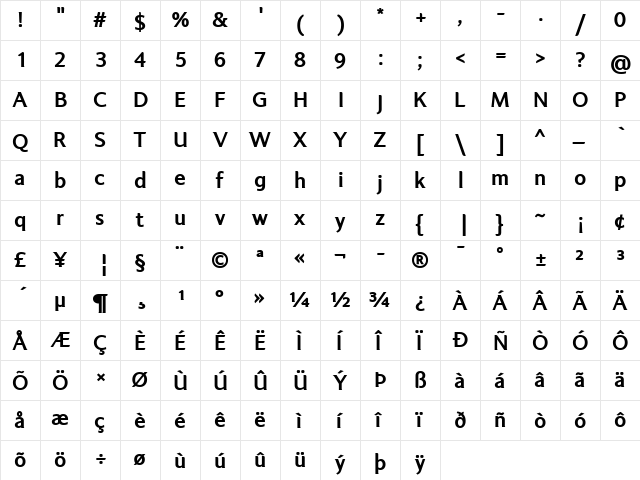
LT Internet Bold
| Designer | Dan P. Lyons |
Design Context for LT Internet Typeface
LT Internet offers clean, dependable letterforms without strong stylistic allegiance, making it a practical choice for designers who need flexibility. Its bold stroke weight gives it real presence on the page.
Pro Tip: Pair LT Internet with a font of contrasting weight or personality to build a more expressive typographic hierarchy.